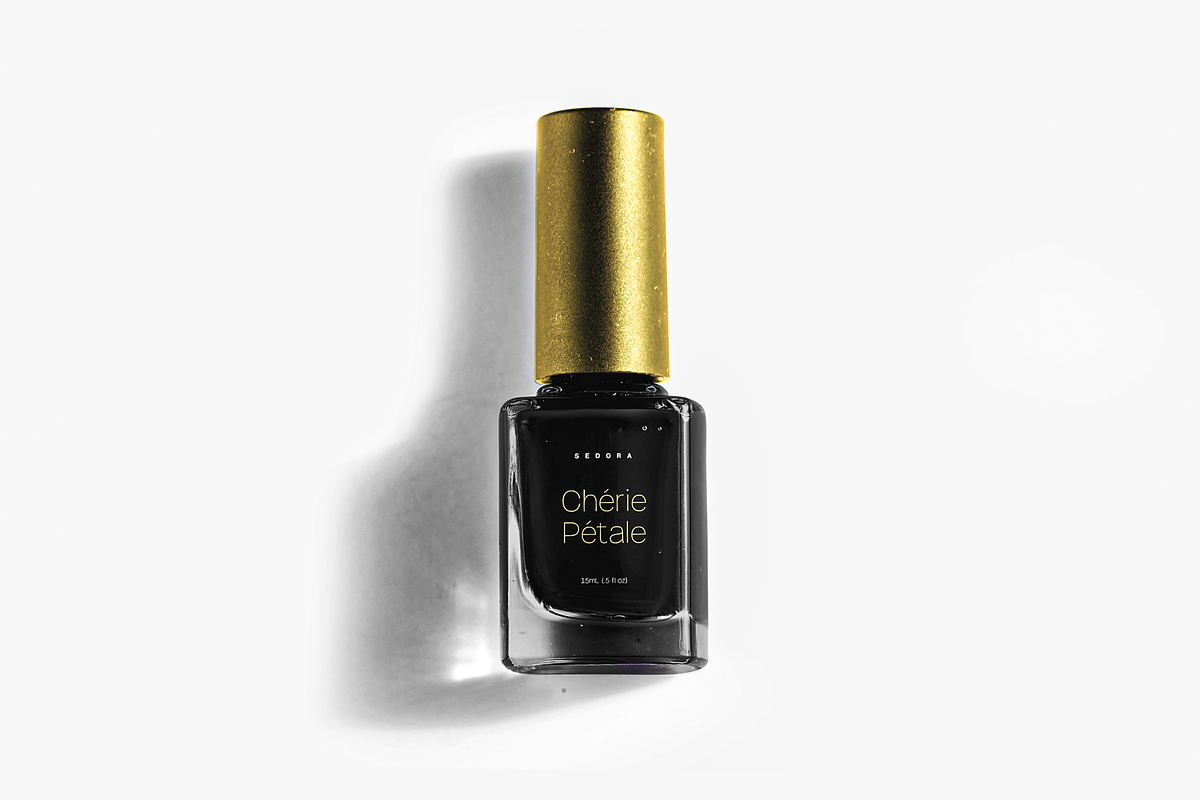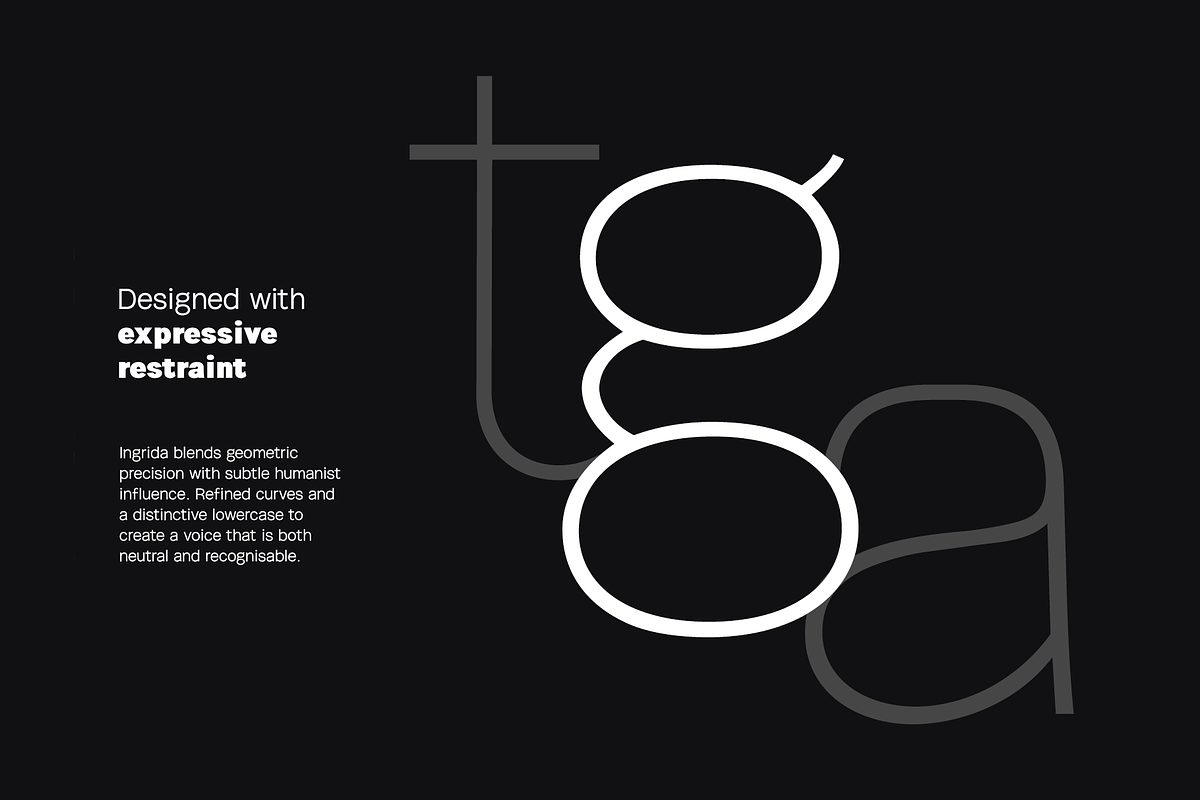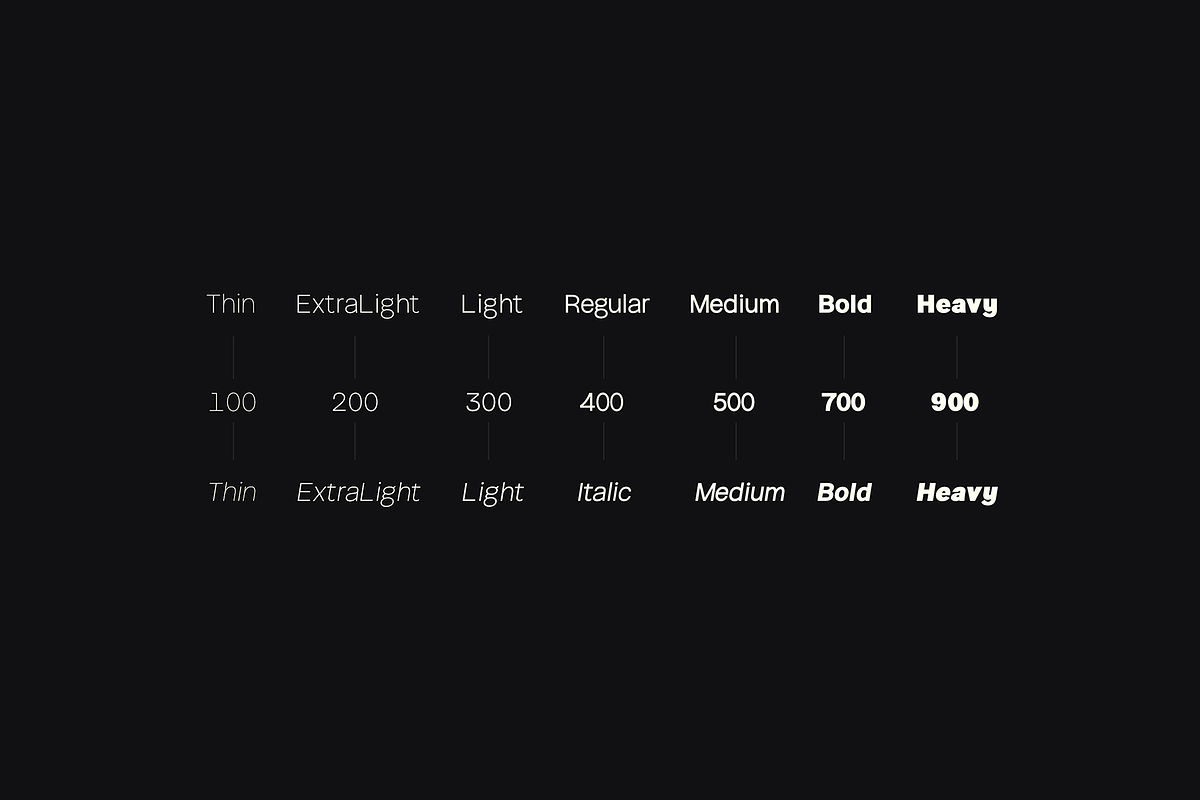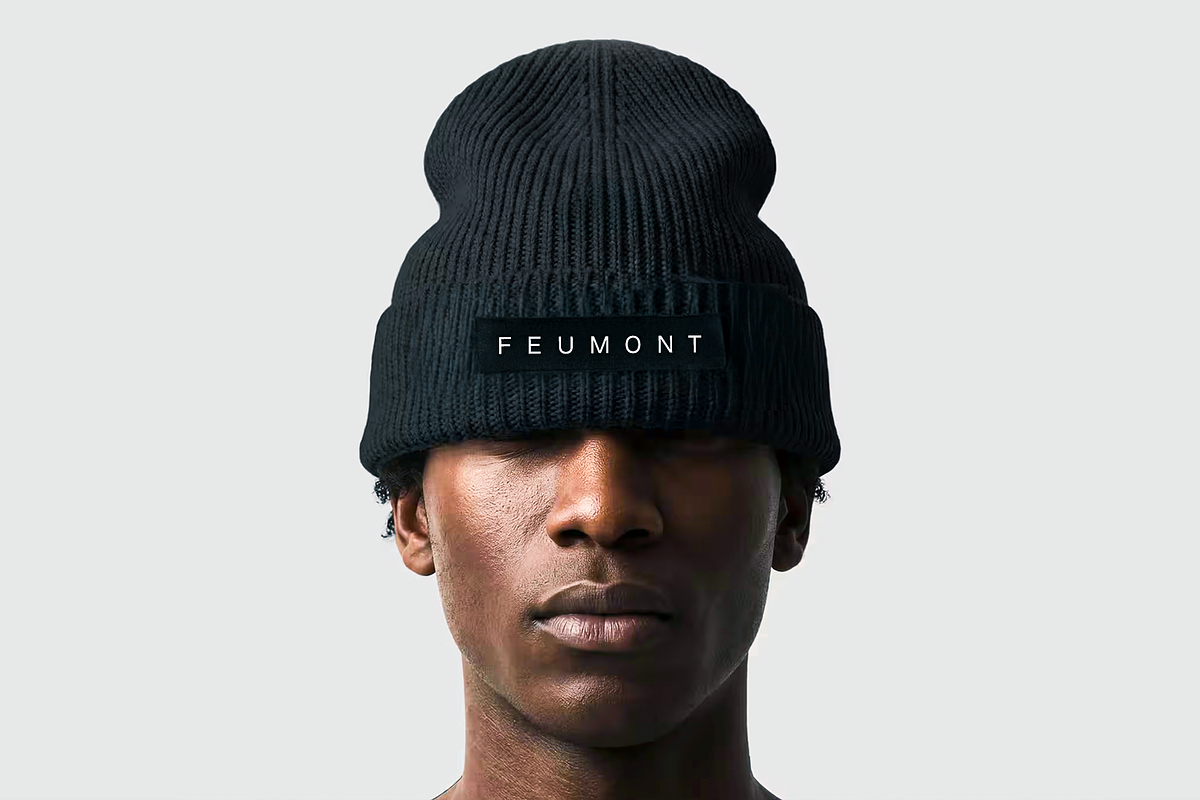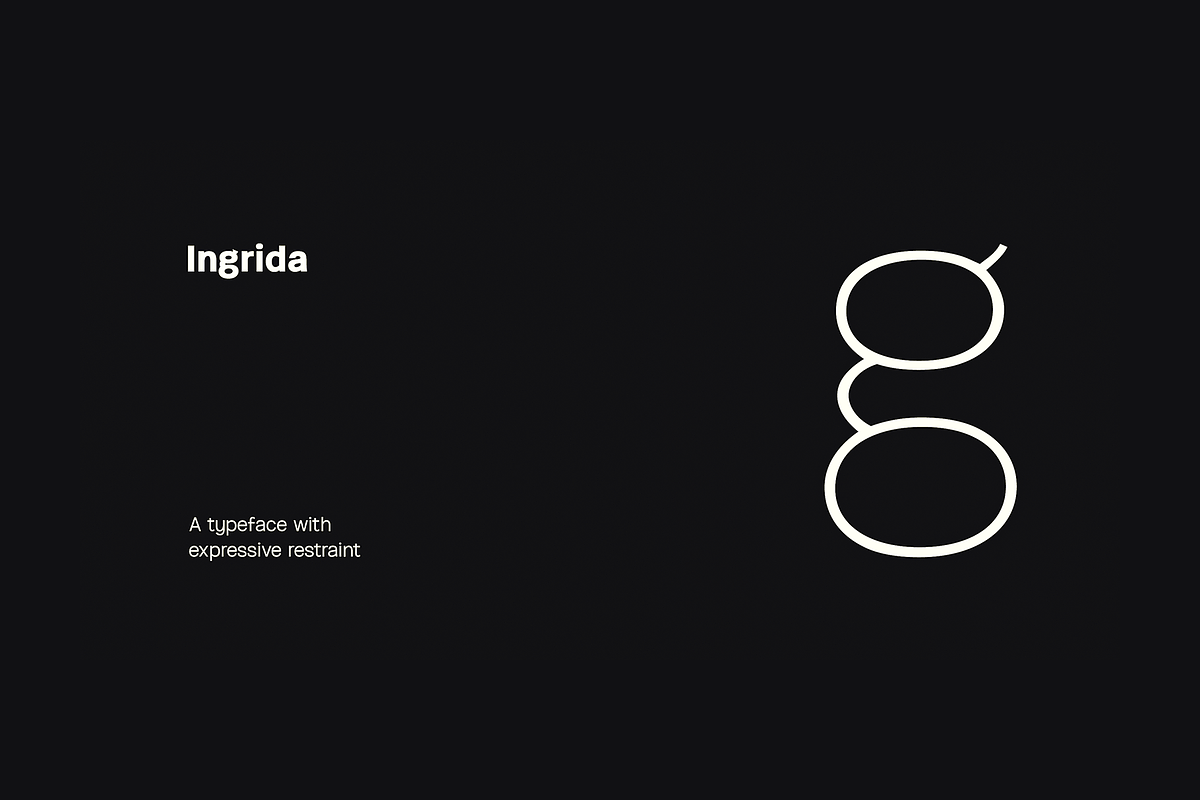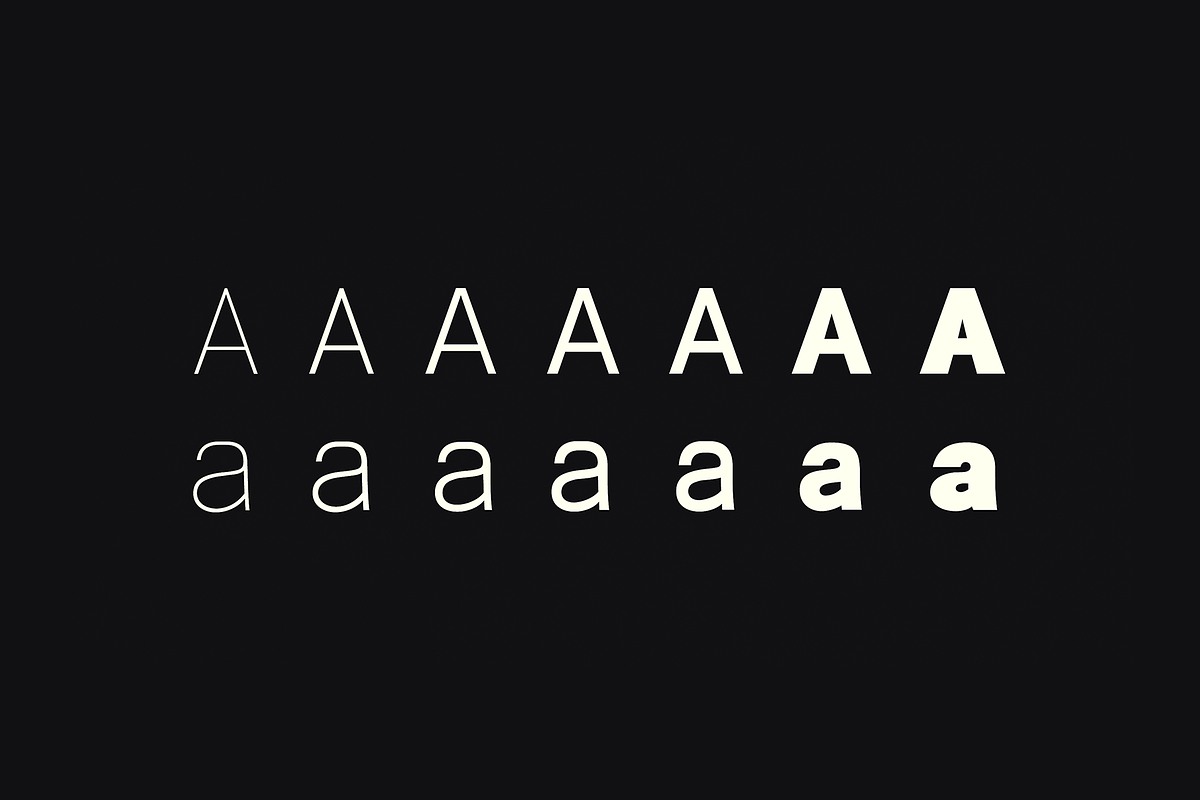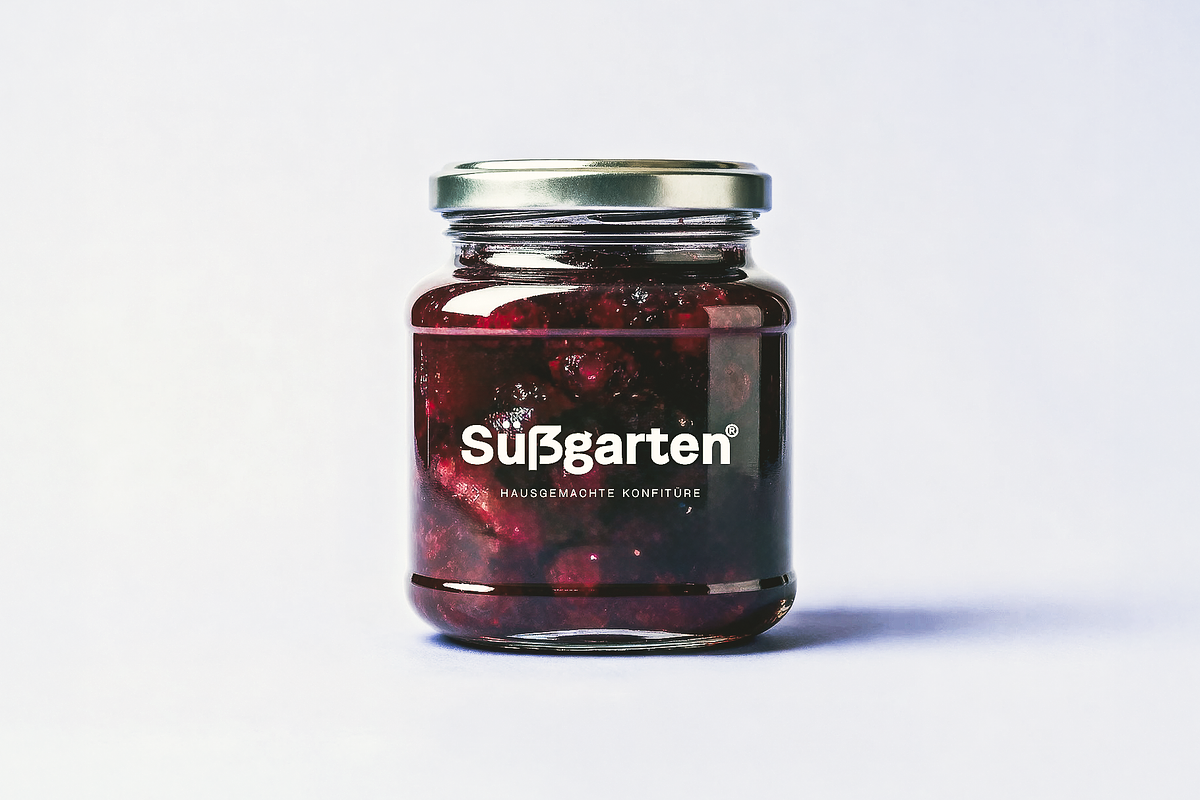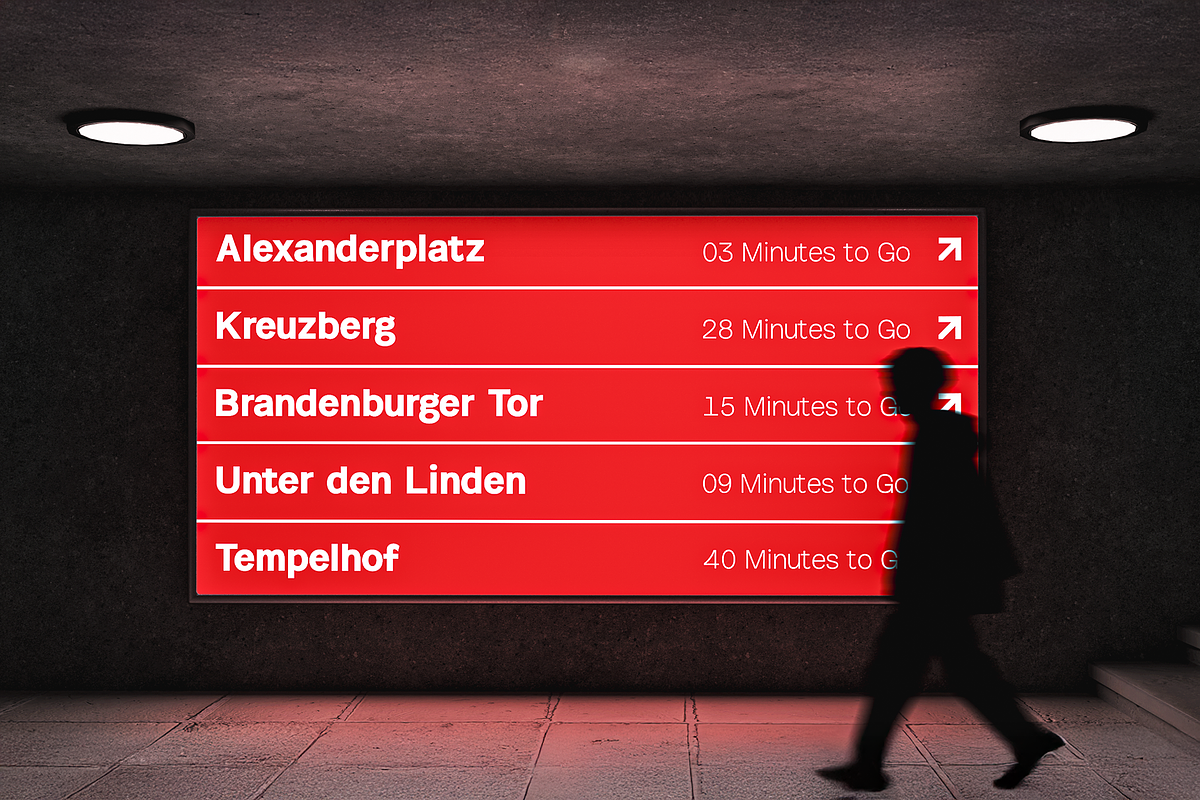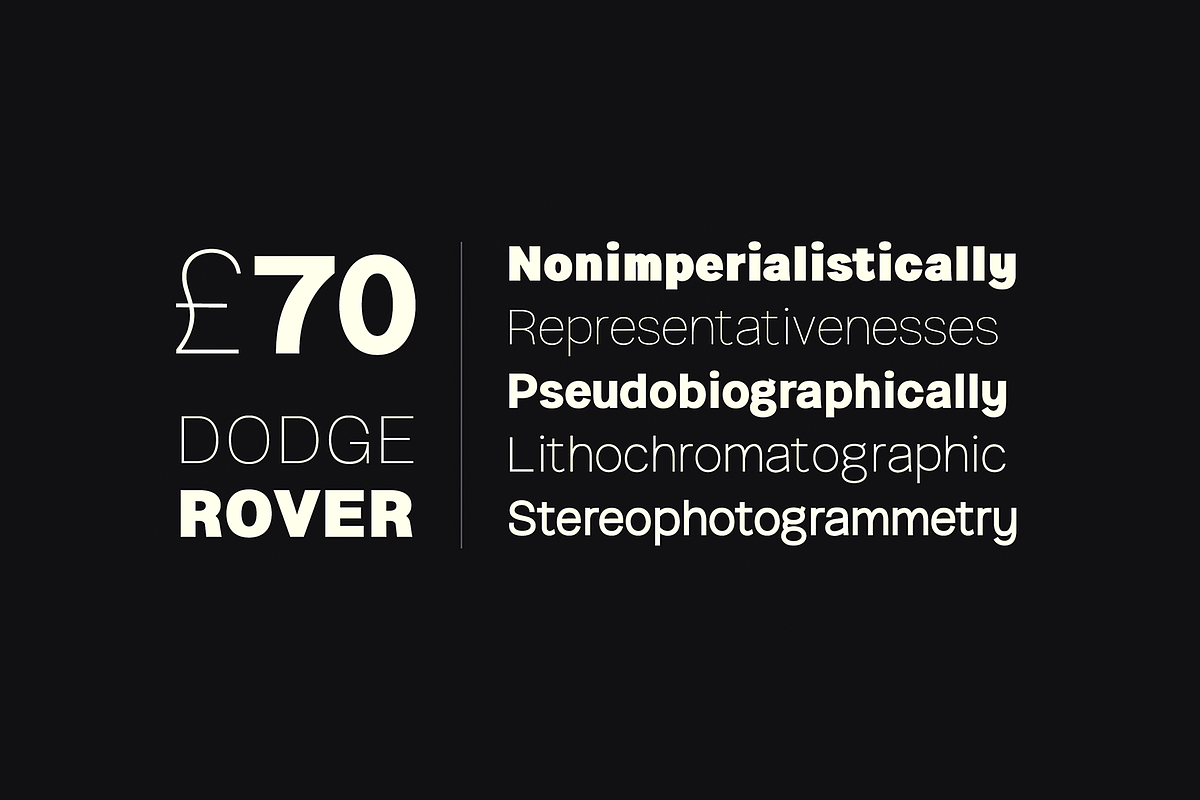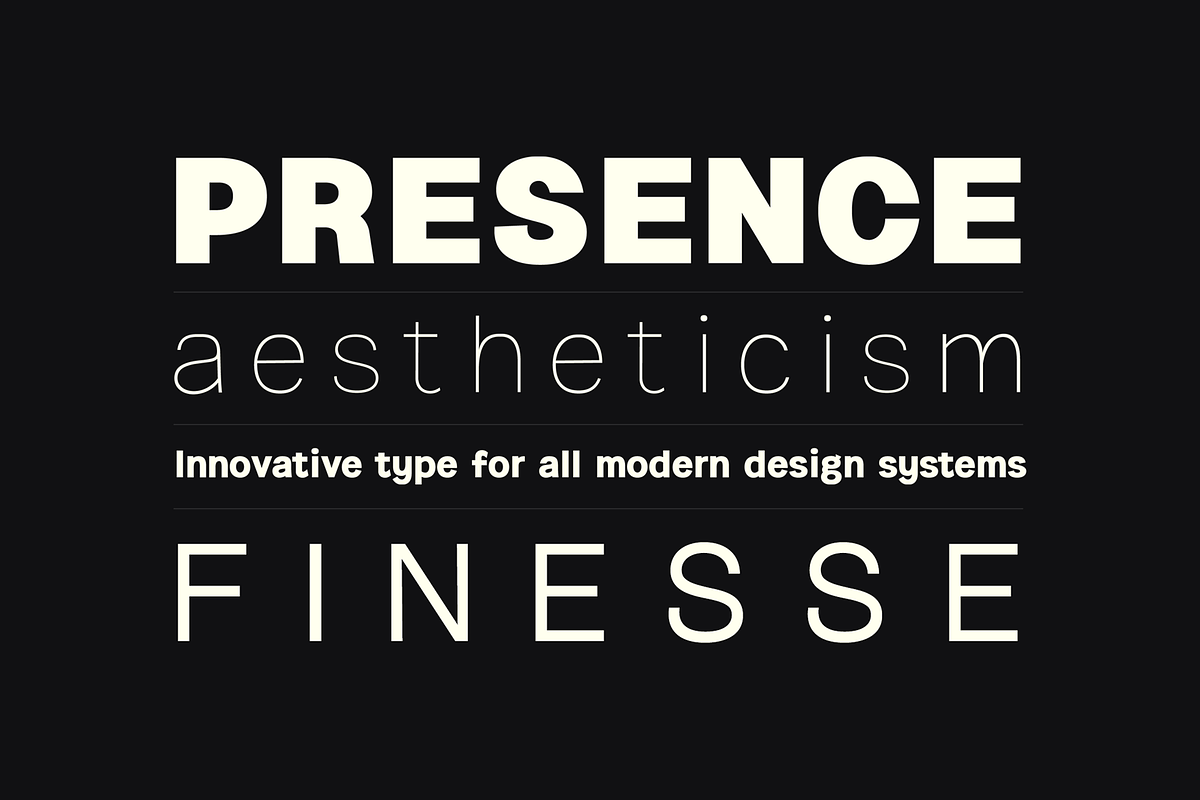
Ingrida – Modern Sans Serif 14 Fonts
ABOUT THE TYPEFACE:
Ingrida is a contemporary sans serif typeface designed with clarity, balance, and refined minimalism at its core. With its smooth curves, open forms, and confident geometry, Ingrida delivers a clean yet distinctive voice across both digital and print environments. Crafted for modern designers, brands, and creatives, this typeface blends functionality with subtle personality - making it equally suitable for bold headlines and elegant body text. The inclusion of upright and italic styles adds versatility, allowing for expressive typographic compositions while maintaining visual harmony. Whether used in branding, editorial layouts, or UI design, Ingrida brings a polished and professional aesthetic to every project.
Ingrida offers 14 fonts, including 7 weights of upright styles and their matching italics. It has been crafted with powerful OpenType features, providing an extensive character set with 319 glyphs that support over 100 languages. This typeface is well-suited for graphic design, display, branding, and marketing applications. It performs exceptionally well for web, social media, digital marketing, signage, corporate materials, and editorial design. With additional letter spacing, Ingrida becomes the ideal choice for minimal headlines and logotypes, as demonstrated in the attached promotional designs.
The Ingrida font family includes 14 fonts in total, with seven upright weights and Italic equivalents of all seven weights as follows:
- Thin
- Thin Italic
- ExtraLight
- ExtraLight Italic
- Light
- Light Italic
- Italic
- Medium
- Medium Italic
- Bold
- Bold Italic
- Heavy
- Heavy Italic
Handcrafted and designed with powerful OpenType features in mind, each weight includes extended language support with Western European, Central European, and South Eastern European sets. A total of 319 glyphs are available.
Scripts: Latin